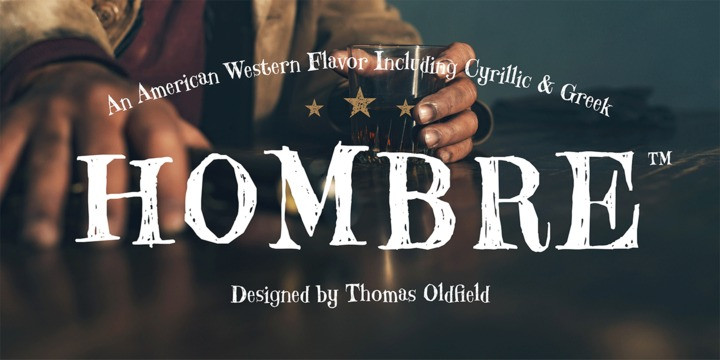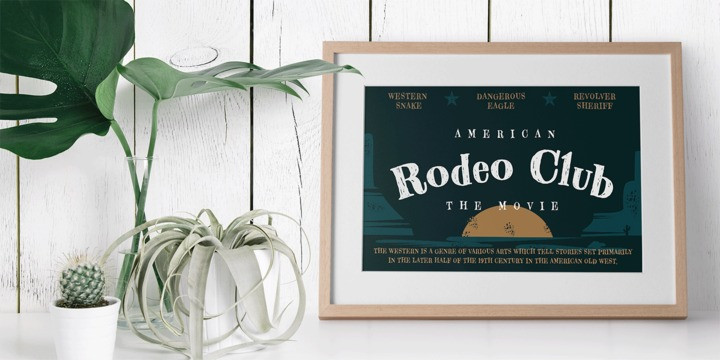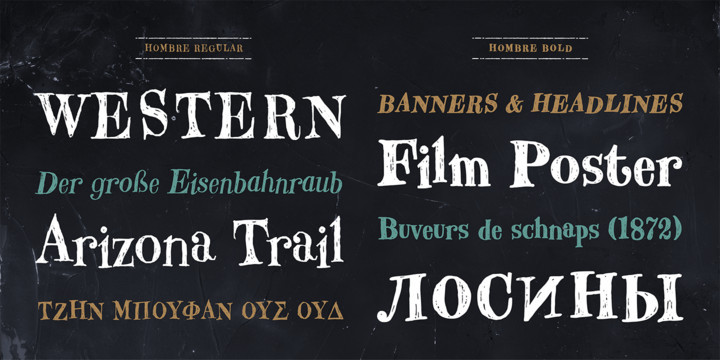
Hombre Font
Hombre™ is a sure-fire attention-getter for projects requiring a straight out of the old west flavor.
Authentic, weather-beaten, time-ravaged, and a bit haphazard, it’s also a sure-fire attention-getter.
Drawn by Thomas Oldfield and loosely based on popular typefaces of the 19th century, Hombre offers all the gun-slinging swagger and rugged style of Jesse James and his crew of outlaws. But don’t typecast this design. The Hombre typefaces are equally at home in ads, banners, headlines and subheads – in both hard copy and digital environments.
Add to this, a large character set supporting most Western European and many Eastern European languages, including Cyrillic and Greek, and you can bring a rustic and timeworn look to a passel of applications.